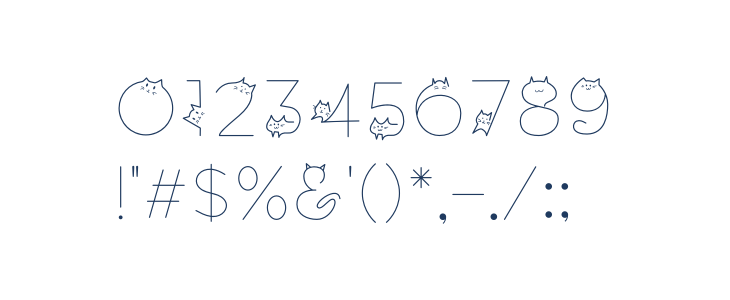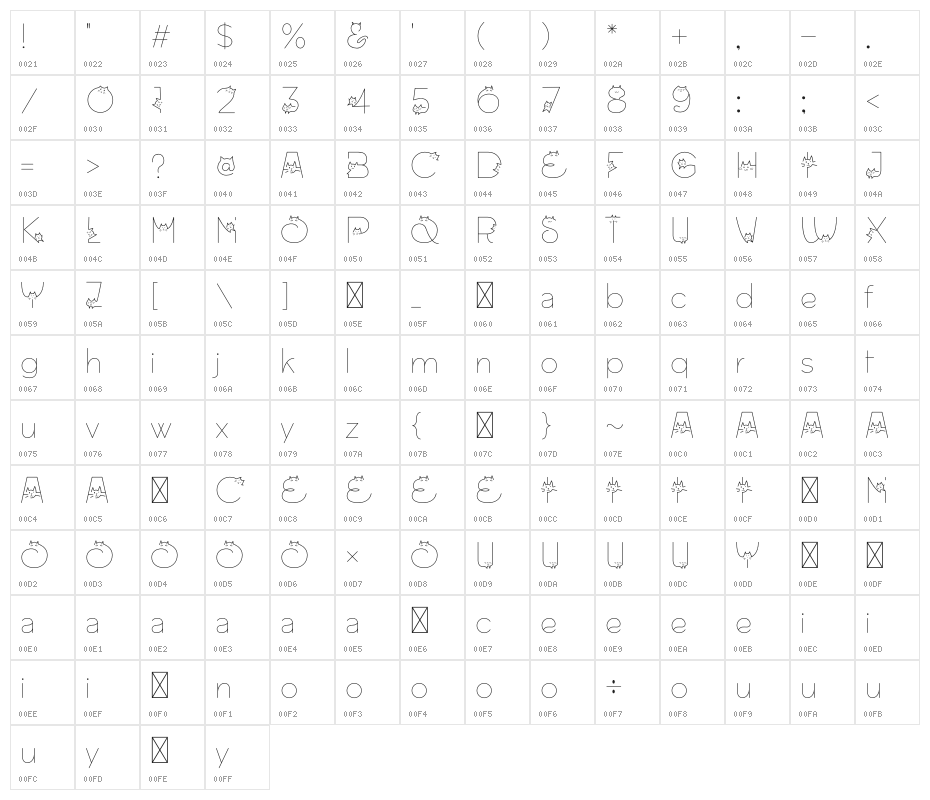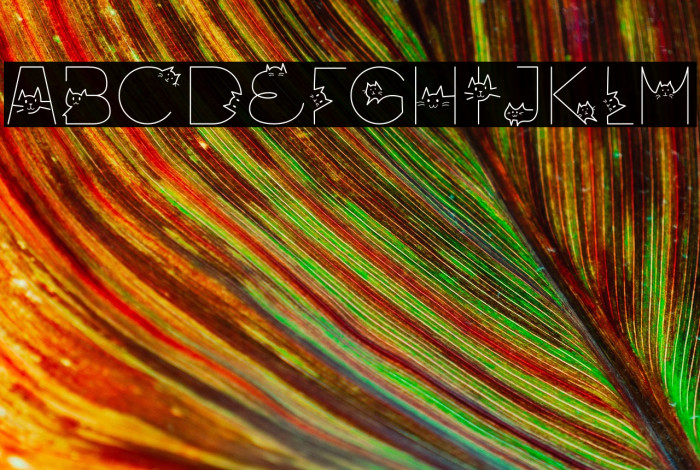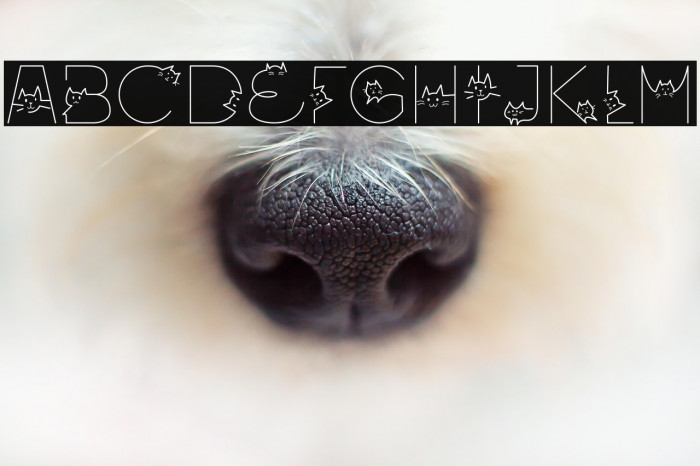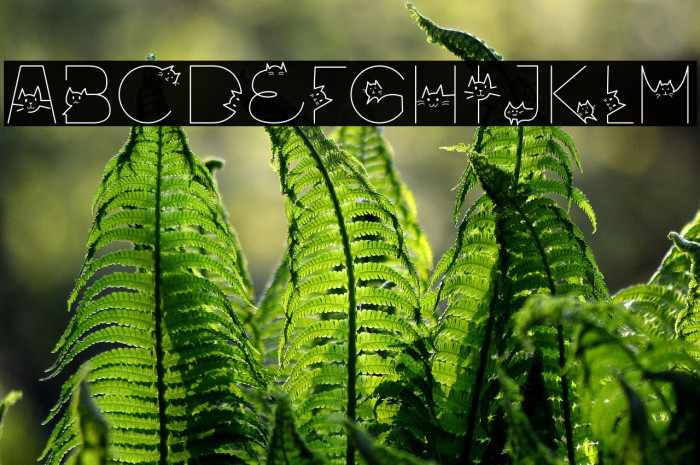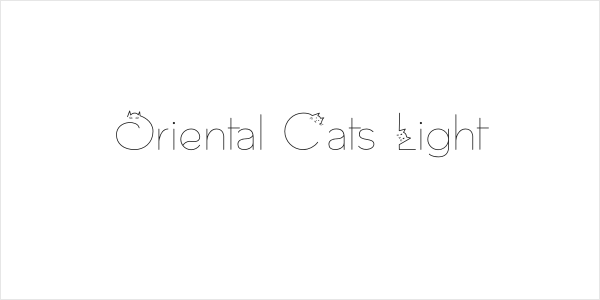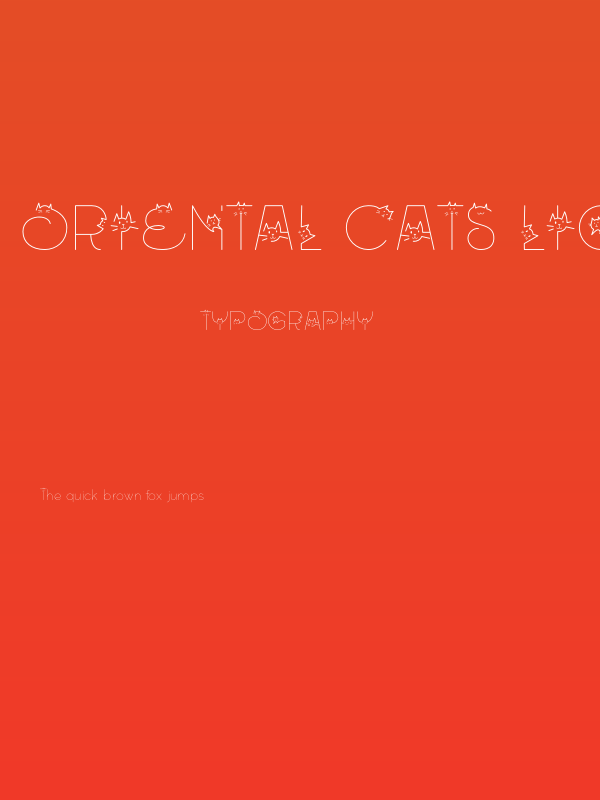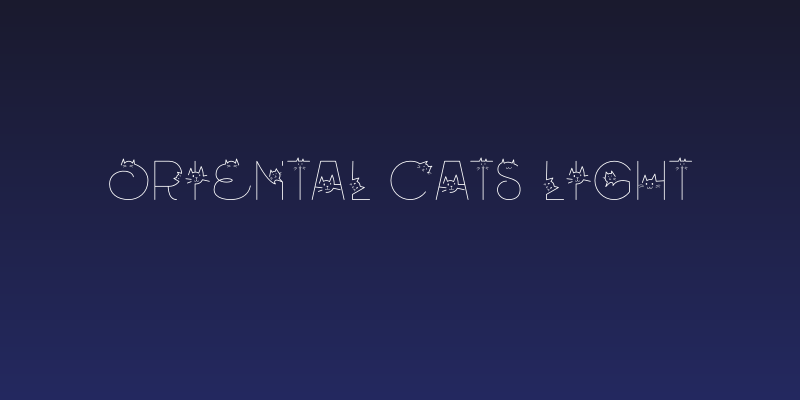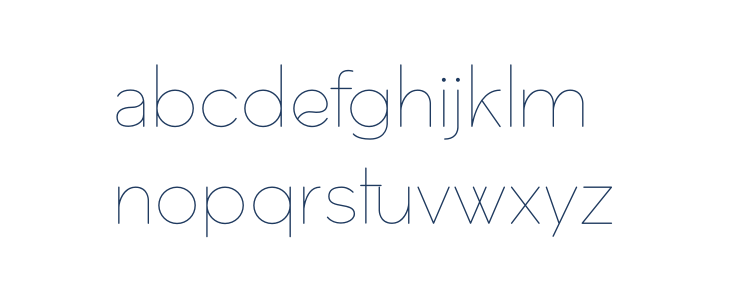
Oriental Cats Light Font
Oriental Cats Light Description
This playful and whimsical font features a unique design where each character is integrated with cat illustrations. The uppercase letters incorporate cat faces and ears, adding a charming and decorative element. The lowercase letters maintain a clean and simple sans-serif style, providing a nice contrast to the more elaborate uppercase. Numbers and special characters also include cat motifs, making this font perfect for creative and fun projects. The overall design is light and airy, with a modern touch that appeals to a wide audience.
| Overall Style | Playful, Modern, Decorative |
| Proposed Projects | Ideal for children's books, pet-related branding, playful invitations, and creative posters. |